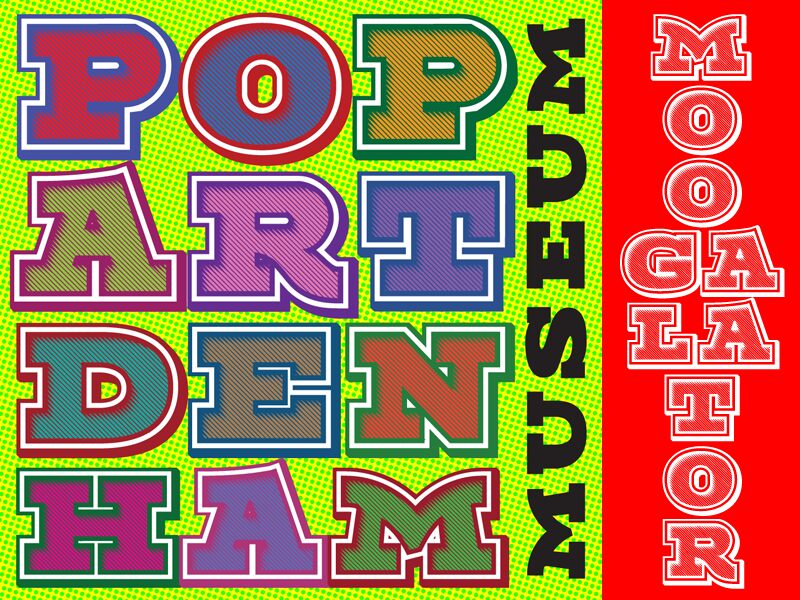
Moogalator Filler font by Tup Wanders is a display typeface that breathes retro aesthetics in its every curve and line. Its blocky structure adds boldness to every character while its solid surface draws inspiration from the mid-20th-century style. The expanded width makes it impossible to miss, suitable for when you want your words to be part of both worlds; vintage and modern.
I needed some letters with shading and decided to expand it into a full typeface. The bold slab serifs can create a sense of compression, causing some characters to appear squashed here and there. However, I believe there are those who will find it useful, and I had fun creating it.
The process turned out to be more challenging than I anticipated, particularly the shading; it took me an entire week to complete.
If you want to fill in the inside, you can duplicate your text in Moogalator and then change the font to Moogalator Filler. This should fit perfectly as all bearings and kerning are identical. Please refrain from using the Moogalator Filler as a standalone font; it was not designed for that purpose. It will result in poor aesthetics with bad kerning and lack of diacritics.